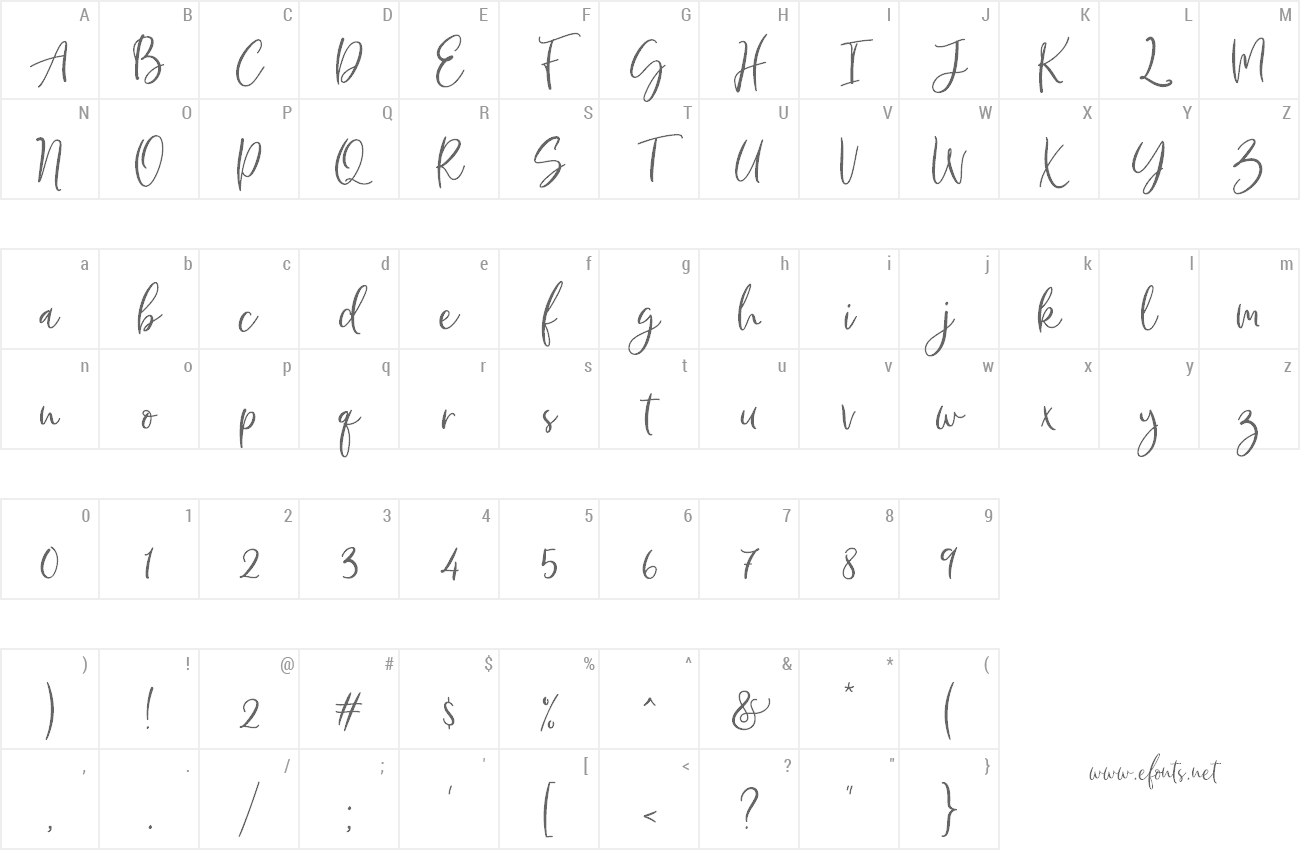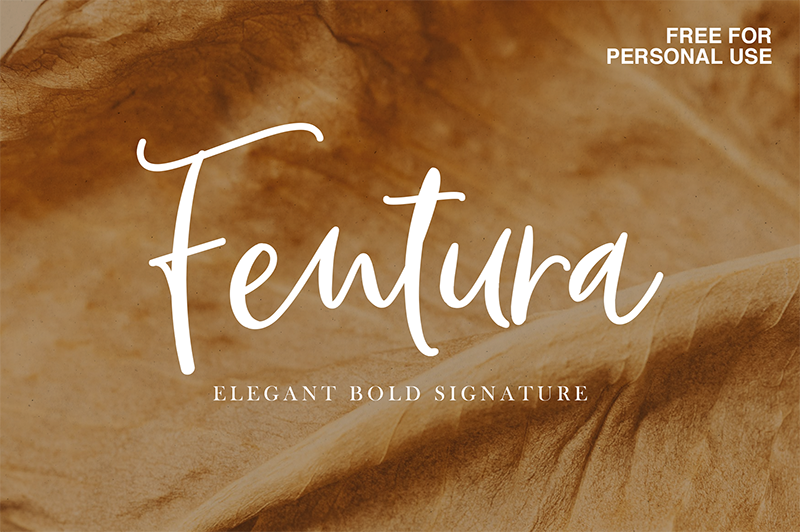
Preview and download Fentura Font. Created by Kurniawan Eko in Script Handwritten styles with Free for personal use license.
Fentura is a font with a bold signature style, giving a flexible and elegant impression to your every design. Create your beautiful imagination with Fentura. Contains a full set of lower & uppercase letters, a large range of punctuation, numerals, and multilingual support. Perfect for adding an elegant and unique touch to your lettering projects and branding. You can create a Wedding lettering or beautiful frame for your home, business, for book covers, stationery, marketing, magazines and many more. Please contact me before any commercial use. My fonts for free use allowed only in personal project , non-profit and charity use. If you make money from using my fonts, Please purchase a commercial license. Email : letteratom@gmail.com Visit my store https://www.myfonts.com/foundry/atom/ https://fontbundles.net/atom-graphic-studio https://www.creativefabrica.com/designer/letteratom/ instagram @letter_atom Thank you! |